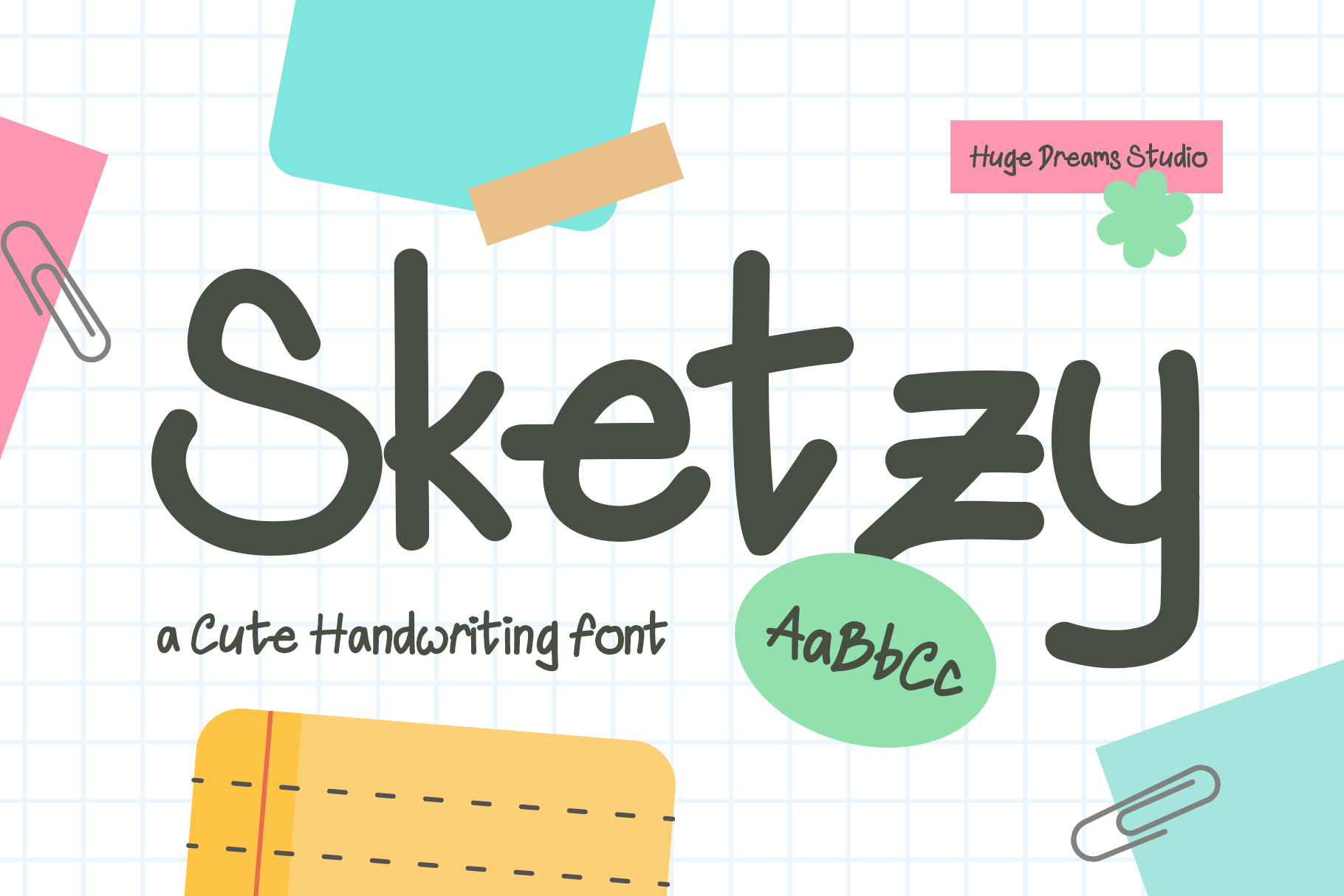
Sketzy – Handwriting Casual Font
Sketzy – Handwriting Casual Font is a cute and whimsical typeface that brings a playful doodle-like charm to your designs. With its casual strokes and hand-drawn feel, Sketzy captures the warmth of handwritten notes and the lighthearted spirit of doodles. Perfect for adding personality and fun, this font is ideal for invitations, greeting cards, children’s projects, branding, social media posts, and anything that needs a touch of quirky creativity. Its unique, carefree style makes every word feel friendly and approachable, giving your designs a cheerful and whimsical vibe.
Sketzy – Handwriting Casual Font features: